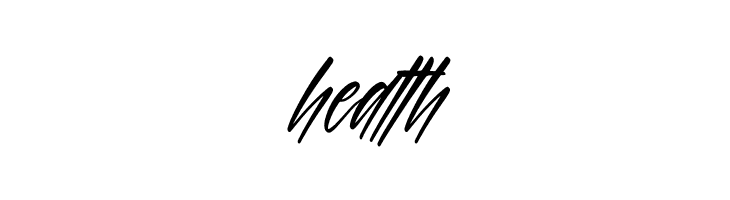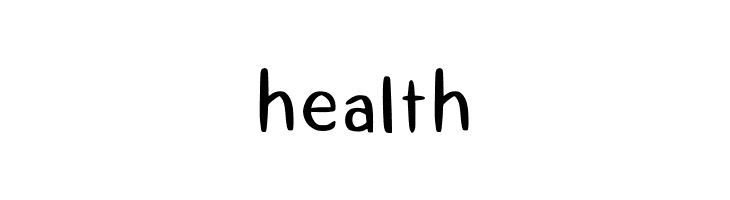
A playful, hand-drawn font with a casual and friendly appearance.
A bold, angular font with a graffiti-inspired, urban aesthetic.
A bold, vintage-style font with thick, blocky characters ideal for impactful designs.
A dynamic and elegant script font with flowing, cursive letterforms.
A fluid, elegant handwritten font with a natural flow and delicate strokes.
A bold, modern script font with a playful, handwritten style.
A bold, geometric font with circular and semi-circular elements.
A dynamic, cursive font with fluid, slanted characters.
An elegant script font with flowing, ornate characters.
A playful, casual handwritten font with uneven strokes and a friendly appearance.